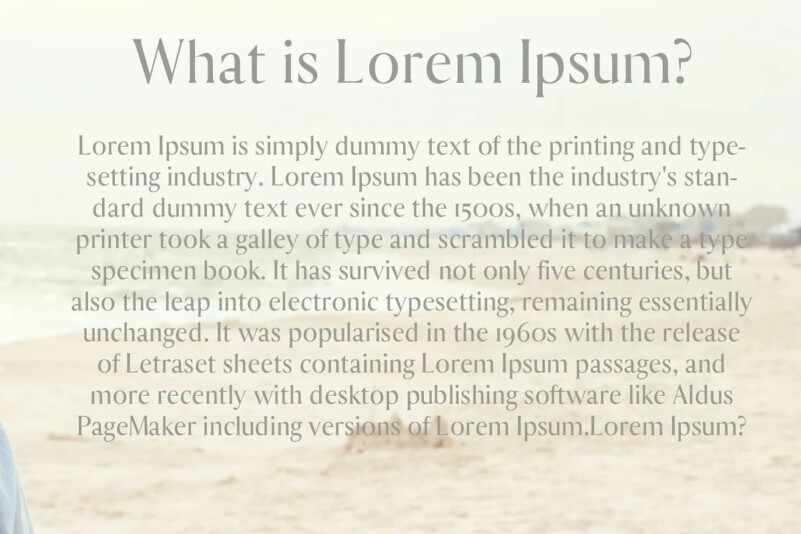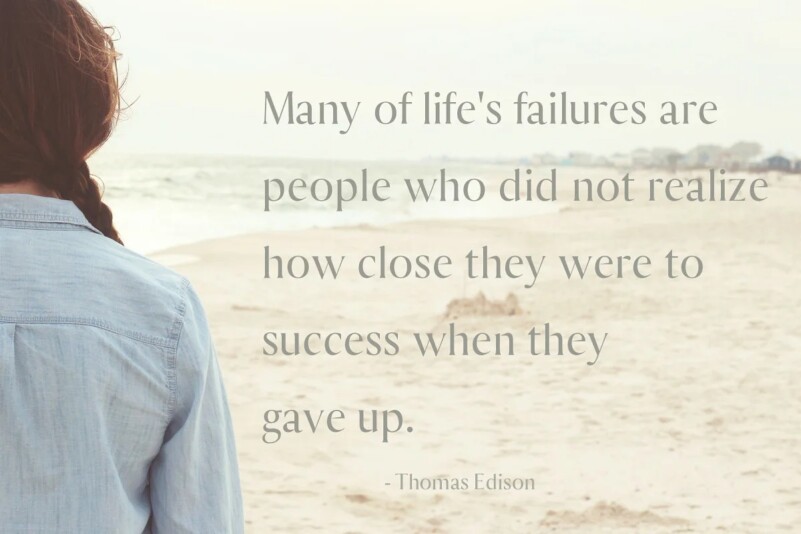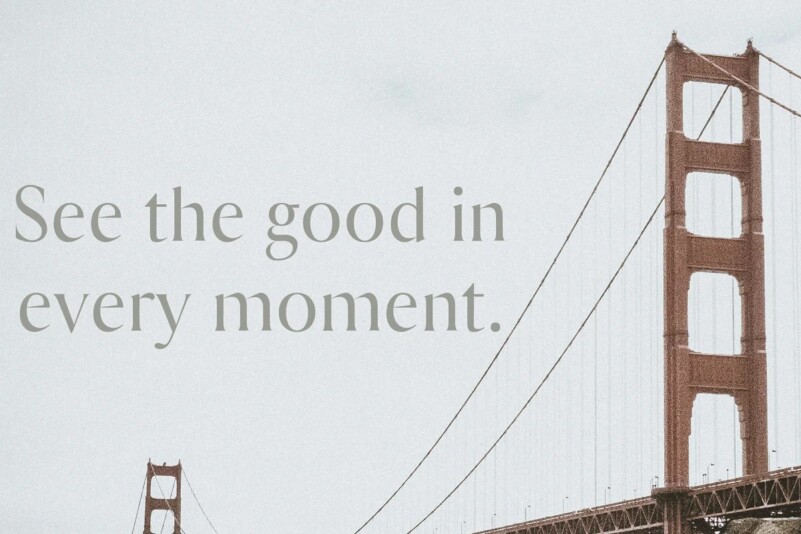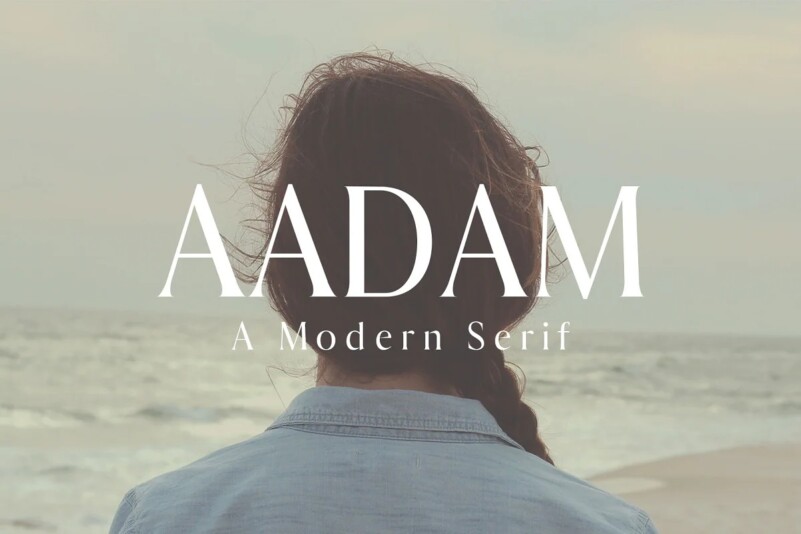
Aadam Font
Aadam Font is an elegant serif with a creative mood and perfect form, inspired by today’s beautiful serif Display. It comes with 3 weights: Regular, Thin, Light and Bold versions, which contains uppercase and lowercase alphabet, numbers, basic punctuation with multilingual support. This font will pair beautifully with the script, signature or handwriting style.